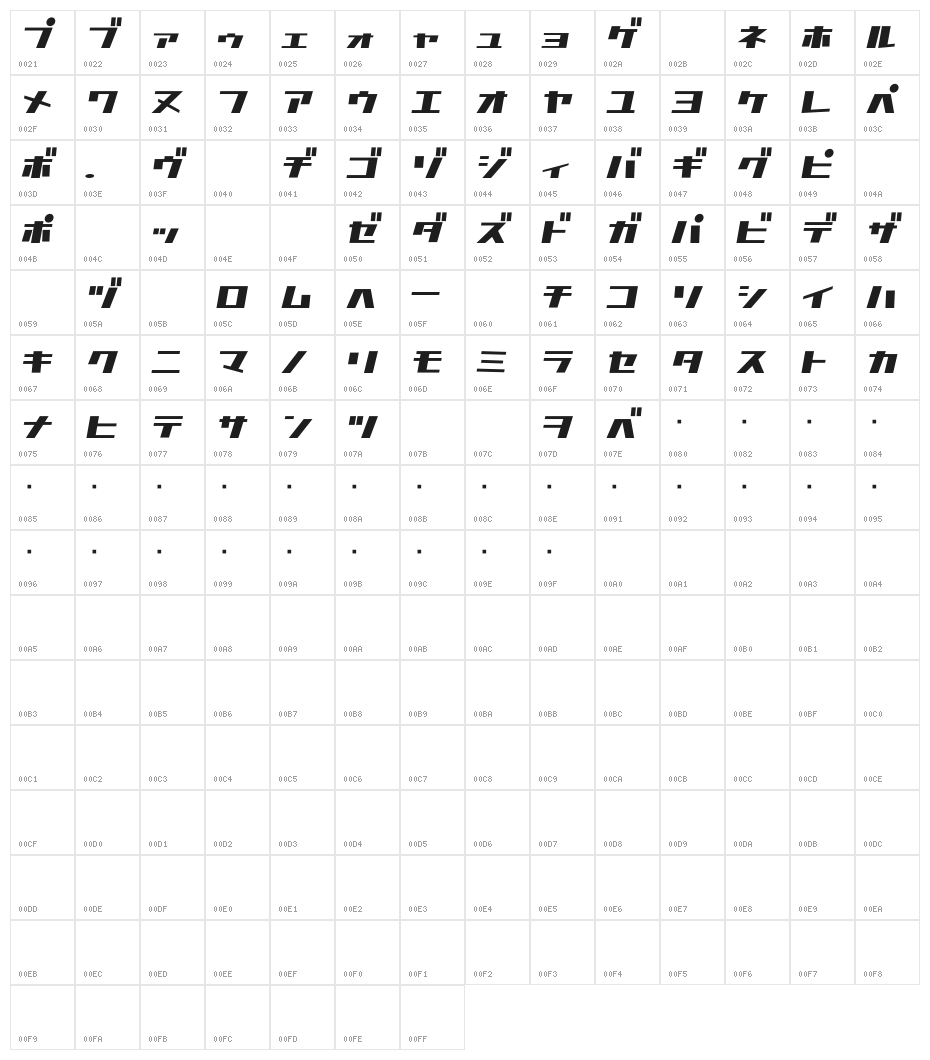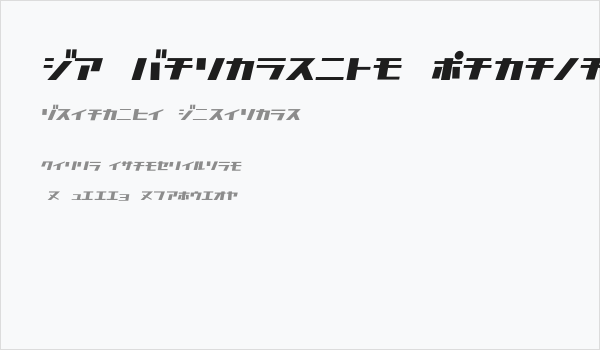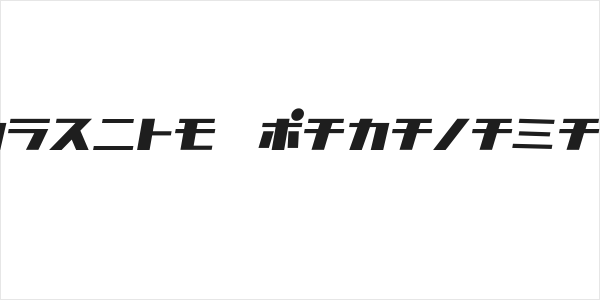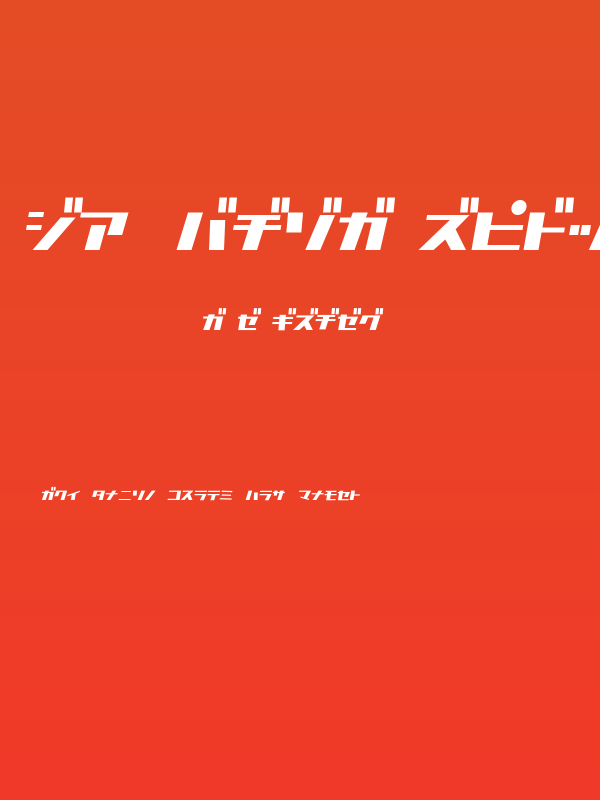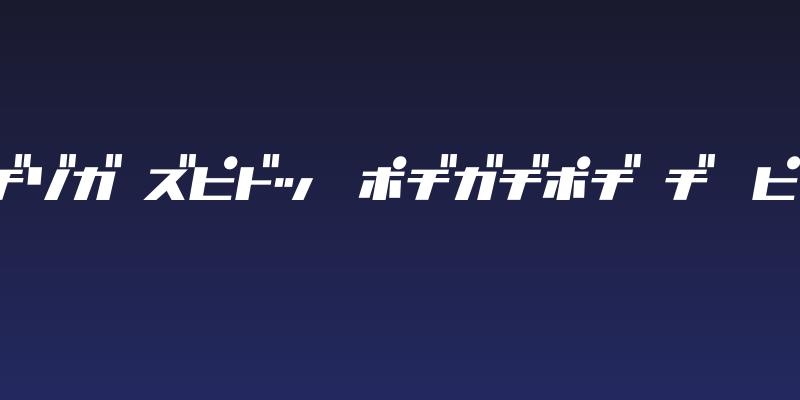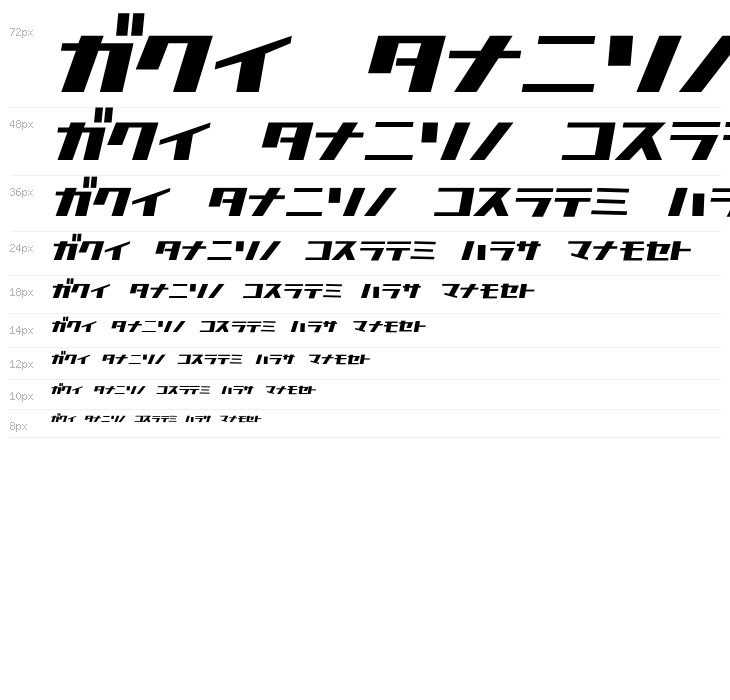
D3 Factorism Katakana Italic Font
D3 Factorism Katakana Italic Description
This font features a bold and dynamic style with a distinctly modern and futuristic aesthetic. The characters are italicized, giving them a sense of motion and energy. The strokes are thick and consistent, providing a strong visual impact. The angular and geometric shapes of the characters contribute to a tech-inspired look, making it suitable for projects that require a contemporary and edgy feel. The overall design is clean and uncluttered, ensuring readability while maintaining a unique style.
| Proposed Projects | Ideal for technology branding, video game titles, futuristic posters, and digital media. |